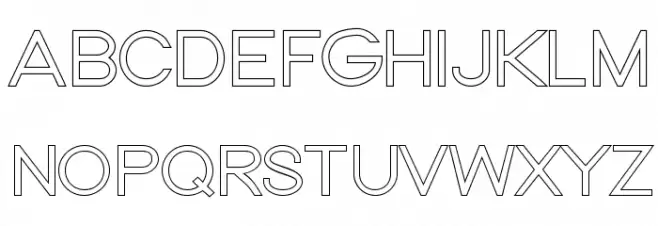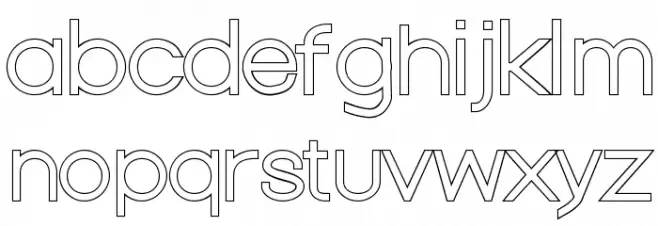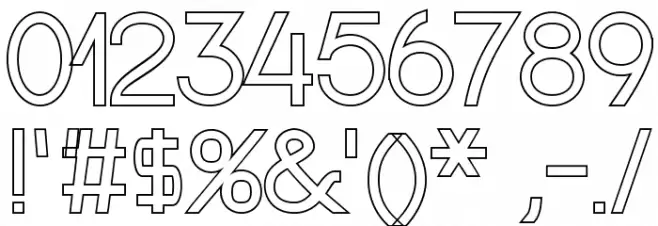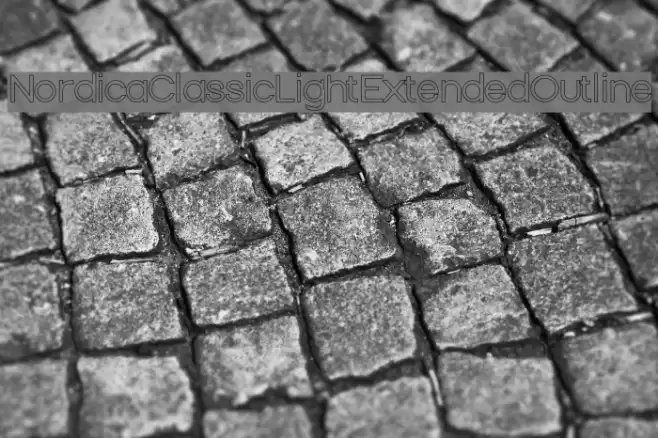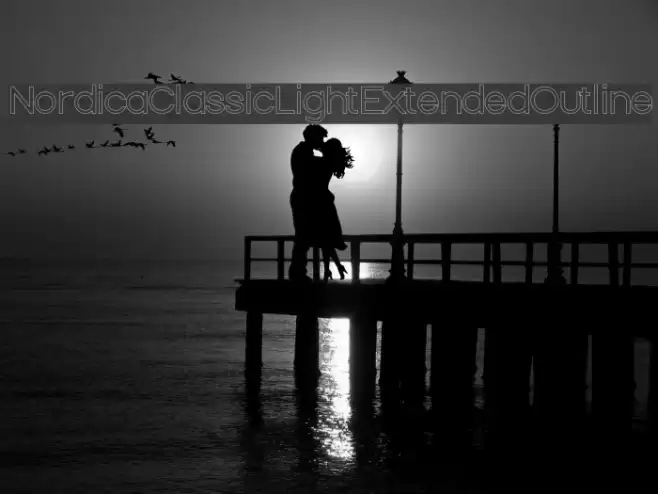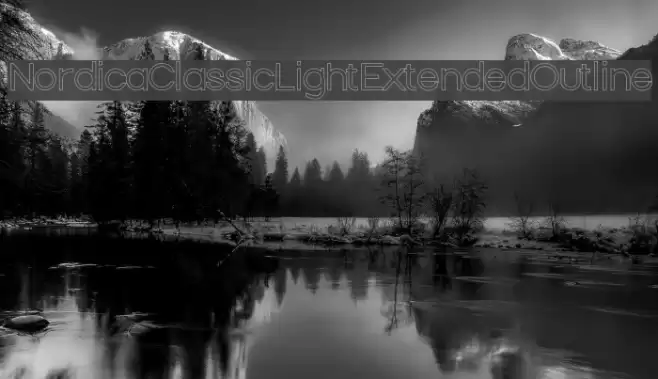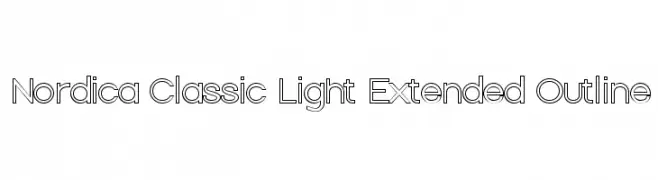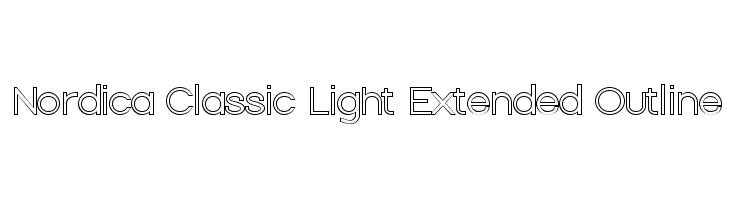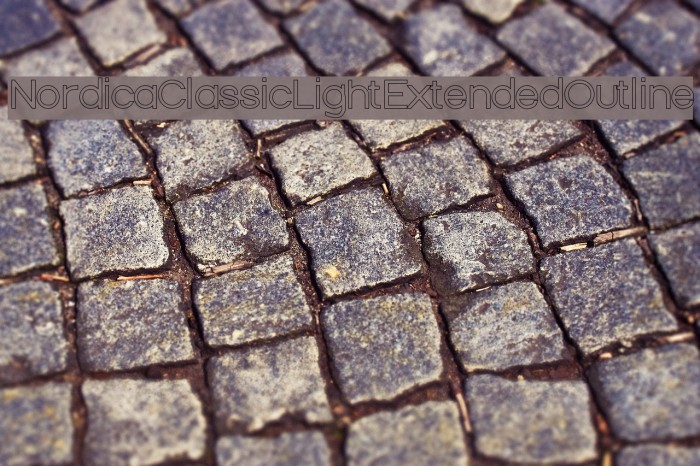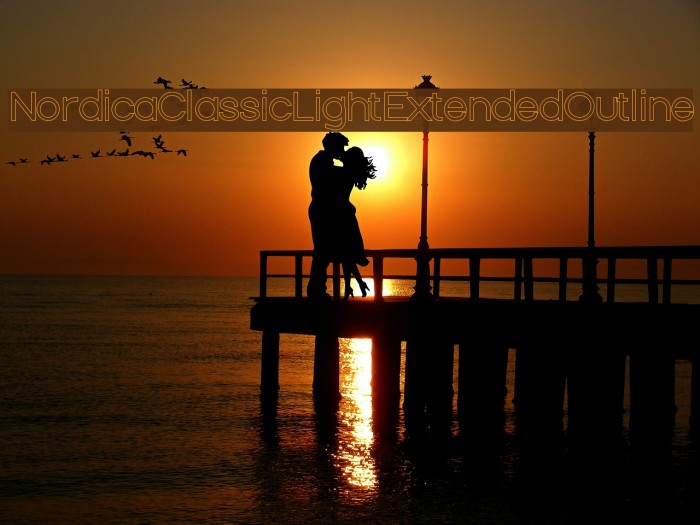
Nordica Classic Light Extended Outline
This font features a clean, geometric design with an outline style that gives it a modern and airy appearance. The characters are evenly spaced and maintain a consistent line thickness throughout, contributing to its minimalist aesthetic. The uppercase and lowercase letters are well-proportioned, with a slight extension that adds to the font's elegance. The numerals and special characters are designed to match the overall style, ensuring uniformity across all glyphs. This font's outline nature makes it ideal for overlaying on images or backgrounds where a subtle yet distinct presence is desired.
A modern, geometric outline font with extended characters and consistent line thickness.
- Proposed Projects: Ideal for branding, logo design, posters, and modern web design projects where a clean and airy look is desired.
- Weight: Light
- Width: Expanded
- Use Case: Logos, Headlines, Posters